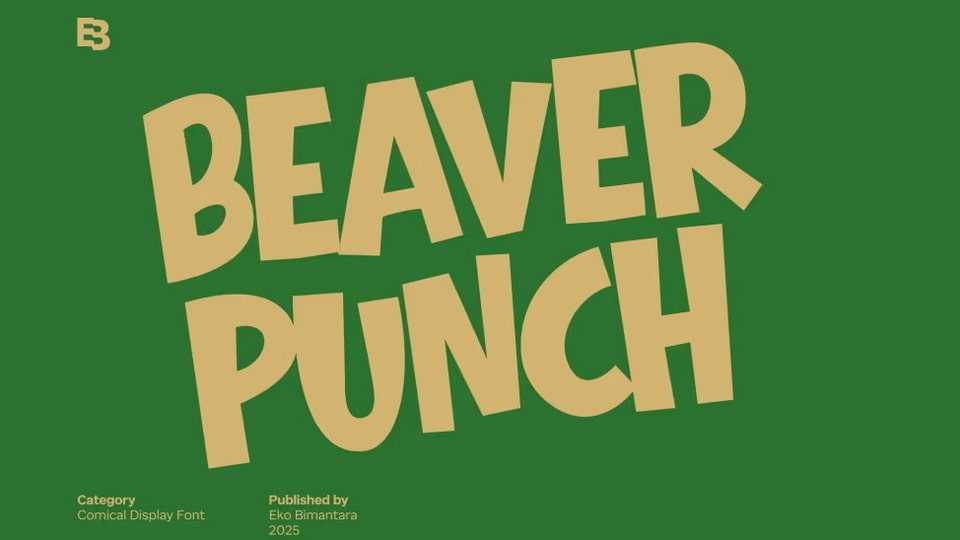
Download Beaver Punch font, a punchy and loud comical display typeface that bursts with character and quirky energy and its bold, angular letters, slightly tilted and imperfect.